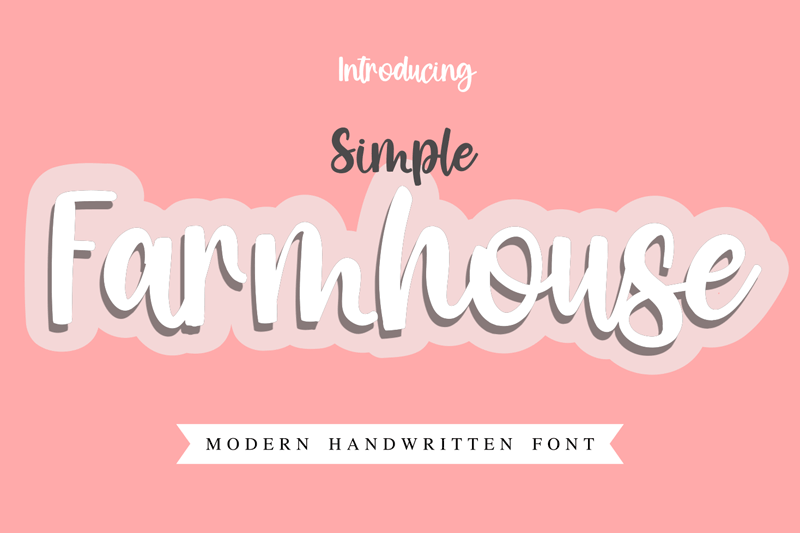
Preview and download Simple Farmhouse Font. Created by Goodrichees in Script Handwritten styles with Free for personal use license.
DETAILS special creative products for you, our products will give you an extraordinary experience. the latest style letters are perfect for wall displays, wedding invitations, social media post logos, advertisements, product packaging, product designs, labels, photography, watermarks, invitations, stationery, and any project that requires taste handwriting. Links for license and contact: ================================================== ========= https://www.creativefabrica.com/ref/399088/ gmail : goodrichees@gmail.com ================================================== ========= ATTENTION: WARNING!!! By installing or using this font, you agree to the Product Use Agreement: - This font has a FULL VERSION and is ONLY for PERSONAL USE. NO COMMERCIAL USE! - If you need CUSTOM PERMIT or COMPANY PERMIT please go to : (goodrichees@gmail.com) - Any donations are greatly appreciated. Paypal account for donations: (paypal.me/alfarisix) USE OF COMMERCIAL FONT WITHOUT PURCHASE OF LICENSE More... |